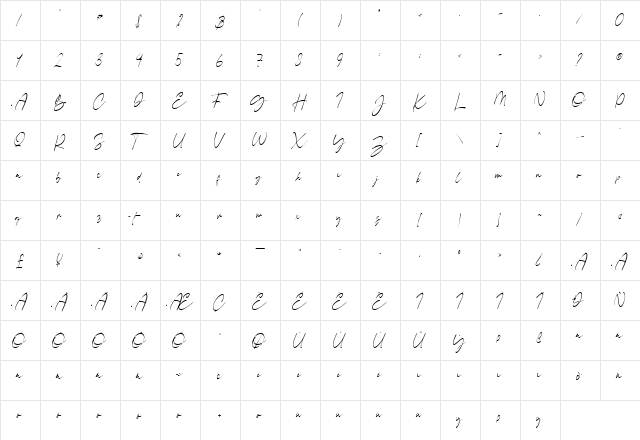
Crimson Foam Regular
| Foundry | Mooveid Co. |
| Designer | Egi Ahmad Mufid |
Design Context for Crimson Foam Typeface
Crimson Foam is a composed and adaptable typeface that performs quietly and consistently across a wide range of design contexts.